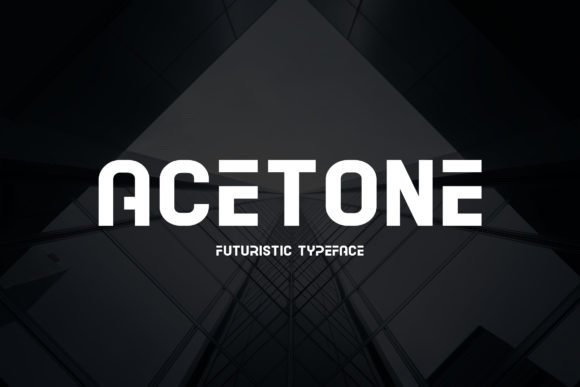
The Perfect Font for a Futuristic Vibe
You’ve been staring at your blank design screen for hours, and suddenly, an idea strikes. You envision a sleek, futuristic logo that screams innovation and cutting-edge technology. You’ve got the concept, but you need the right font to bring it to life. That’s where the Acetone Font comes in – a bold, minimalist display font designed specifically for sci-fi designs that demand a touch of futurism.
This versatile font is perfect for any branding, product packaging, or invitation that requires a modern, edgy look. Whether you’re working on a t-shirt design, label, or poster, the Acetone Font is sure to elevate your project to the next level. Its clean lines, geometric shapes, and futuristic feel make it an invaluable tool for designers looking to create eye-catching, memorable designs.
Acetone Font Key Features
- Unique Character Set: It includes a wide range of characters, including Cyrillic, Greek, and Latin scripts, making it a versatile font for various languages.
- Font Weight: Acetone Font offers a range of weights, from Light to Bold, providing options for varying levels of emphasis.
- Legibility: Its unique design and character set make it well-suited for use in body text, headlines, and titles.
Acetone Font Review
Overall, I think the Acetone Font is a solid choice for designers looking for a clean and modern sans-serif typeface. ✨ Here are some of its strengths:
- Wide range of weights and styles, making it suitable for various design applications.
- Clear and readable even at small font sizes.
- Works well in both digital and print contexts.
- Some users might find the font too minimalist, lacking in personality.
- The italics and bold-italic styles could be more refined.
- Support for some languages might be limited.
Overall, I’d say the Acetone Font is a decent choice for designers who need a versatile sans-serif typeface. While it may not excel in every area, it’s a reliable option that won’t let you down. With a bit of tweaking and adjustment, it can help you create clean and effective designs.
Acetone Font: A Practical Application Guide
Getting the Most Out of Acetone Font
Here are some tips for getting the most out of Acetone Font:
- Use it sparingly to add a touch of elegance to your designs.
- Pair it with other fonts to create a unique and eye-catching typography.
Acetone Font is commonly used in:
- Luxury branding and marketing materials.
- High-end fashion and beauty designs.
Alternatives to Acetone Font